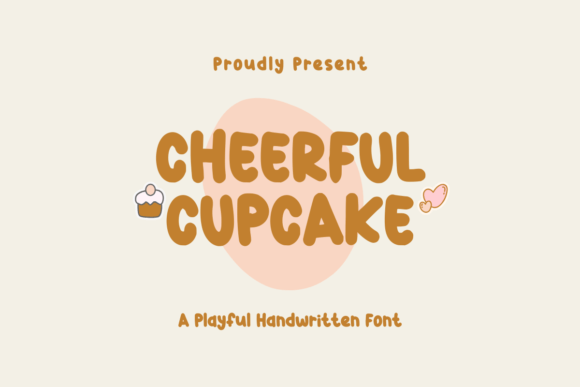
Introducing Cheerful Cupcake Font, the ultimate choice for small display projects! Created by the talented Nadiratype, this adorable and friendly display font is here to add a touch of whimsy to your designs. Get ready to unleash the power of creativity with this captivating font that will truly make your projects stand out!
With its unique and charming appeal, Cheerful Cupcake Font is the perfect choice for all your small display needs. Whether you're designing greeting cards, invitations, posters, or social media graphics, this font will instantly elevate your creations to a whole new level. Its eye-catching style will capture the attention of your audience and leave a lasting impression.
One of the greatest advantages of Cheerful Cupcake Font is its versatility. It seamlessly complements any design theme, making it ideal for a wide range of projects. From cute and playful to elegant and sophisticated, this font effortlessly adapts to suit your desired aesthetic. The possibilities are truly endless!
Crafted with meticulous attention to detail, Cheerful Cupcake Font is designed to bring out the best in your designs. Each character is beautifully handcrafted, ensuring a flawless and seamless look. The smooth curves and clean lines add a touch of professionalism, while the playful elements inject a sense of fun and joy.
But what truly sets Cheerful Cupcake Font apart is its ability to evoke emotions. This font has a way of instantly brightening up any design, creating a warm and inviting atmosphere. Its whimsical vibe will transport your audience to a world of happiness and delight, leaving them with a sense of joy and positivity.
When it comes to small display fonts, Cheerful Cupcake Font reigns supreme. Its captivating appeal, versatility, and ability to evoke emotions make it the ultimate choice for designers and creatives alike. Whether you're a professional designer or a DIY enthusiast, this font will empower you to bring your visions to life with ease and style.